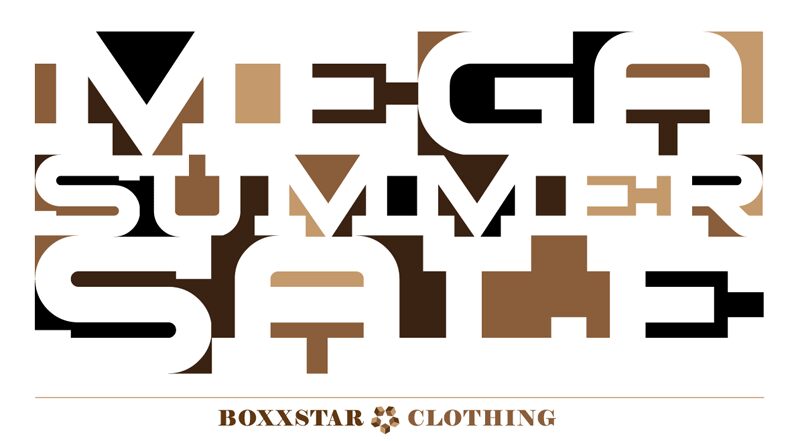
Slabyanuz titling inverted
Slabyanuz Titling Inverted font by Tup Wanders is a techno display font with a bold expanded look. The structured and geometric font is well-characterized as futuristic, mechanical, rigid, and tech-inspired. It combines thick negative spaces with slab-like edges to configure letters in a peculiar manner when set over multiple lines.